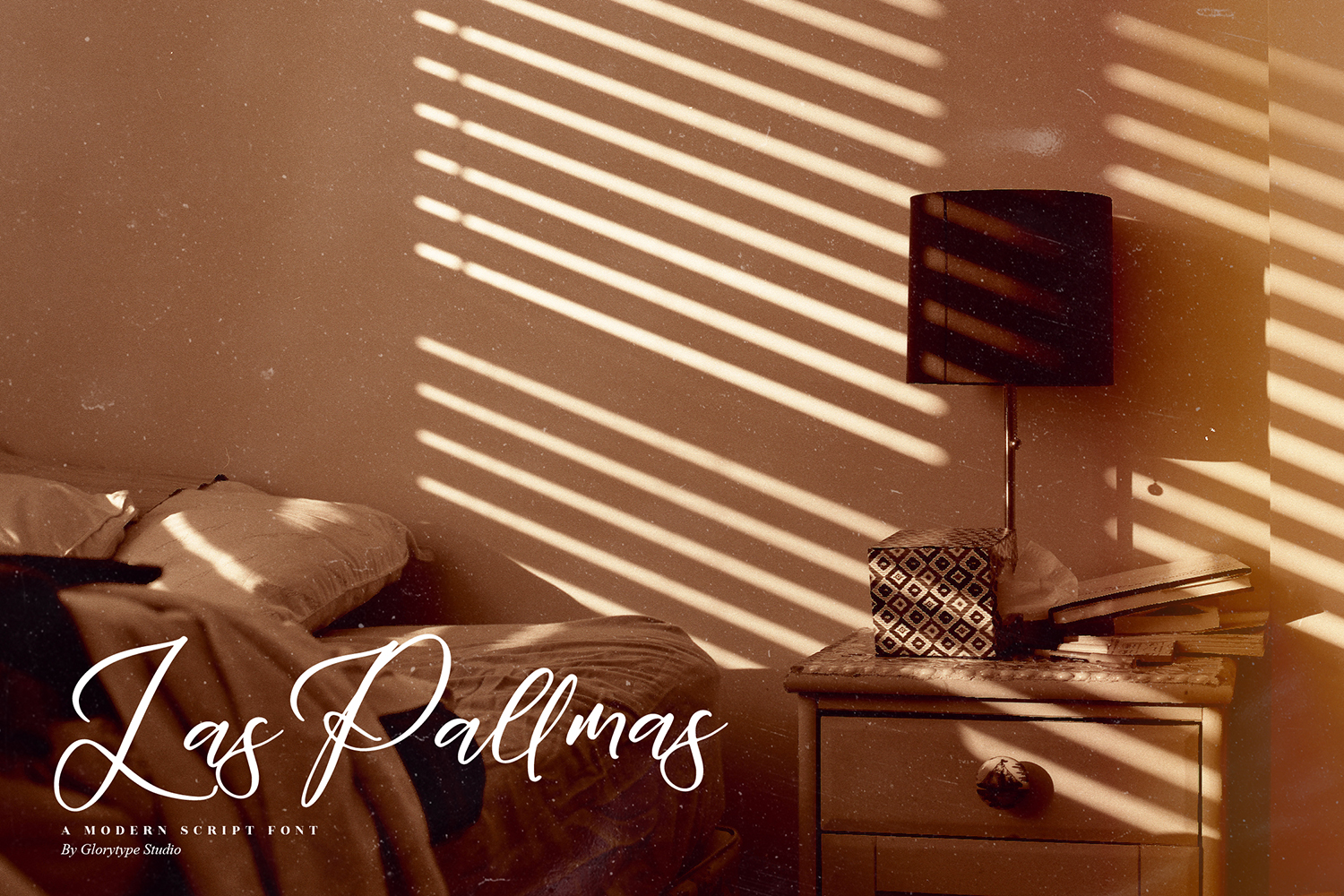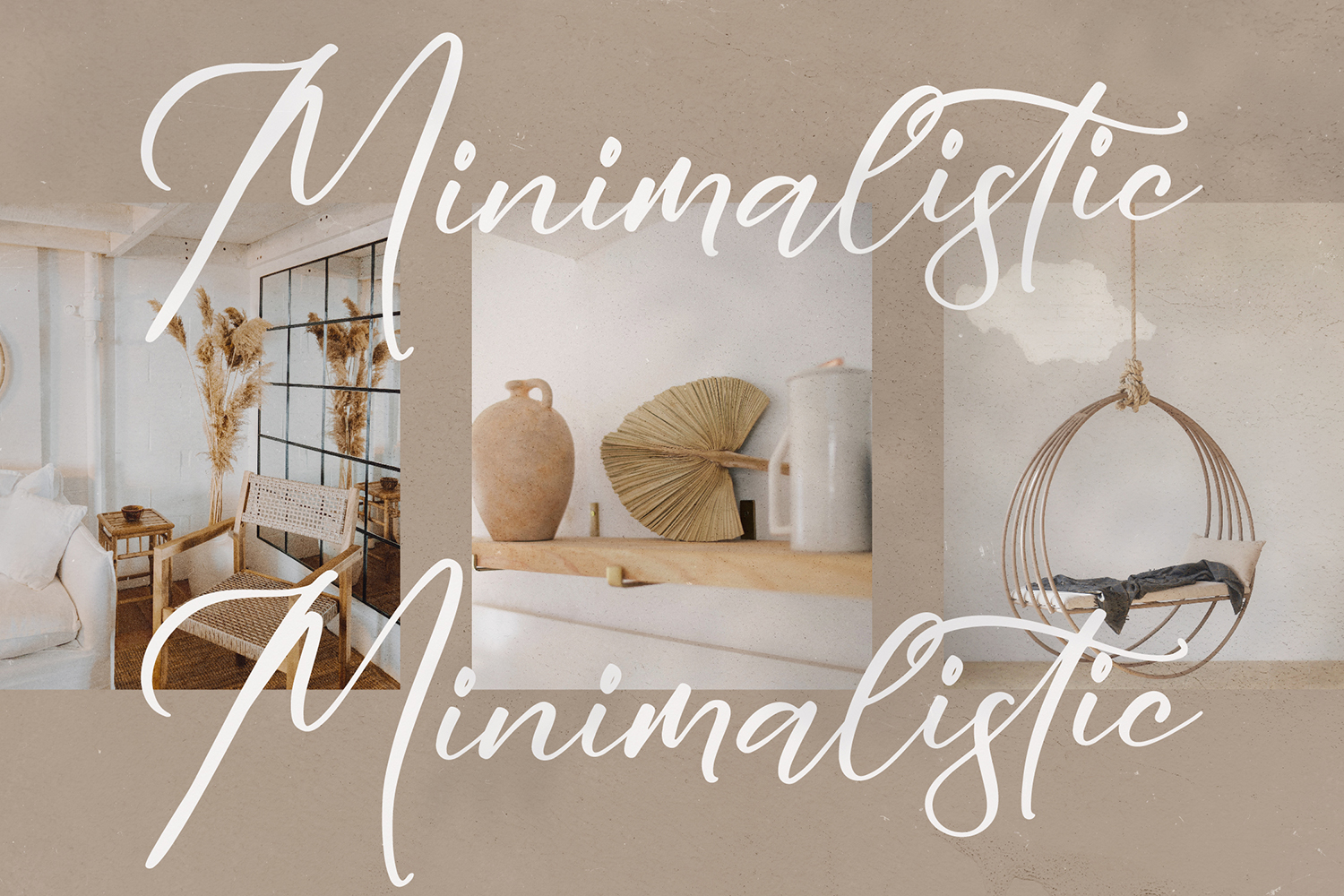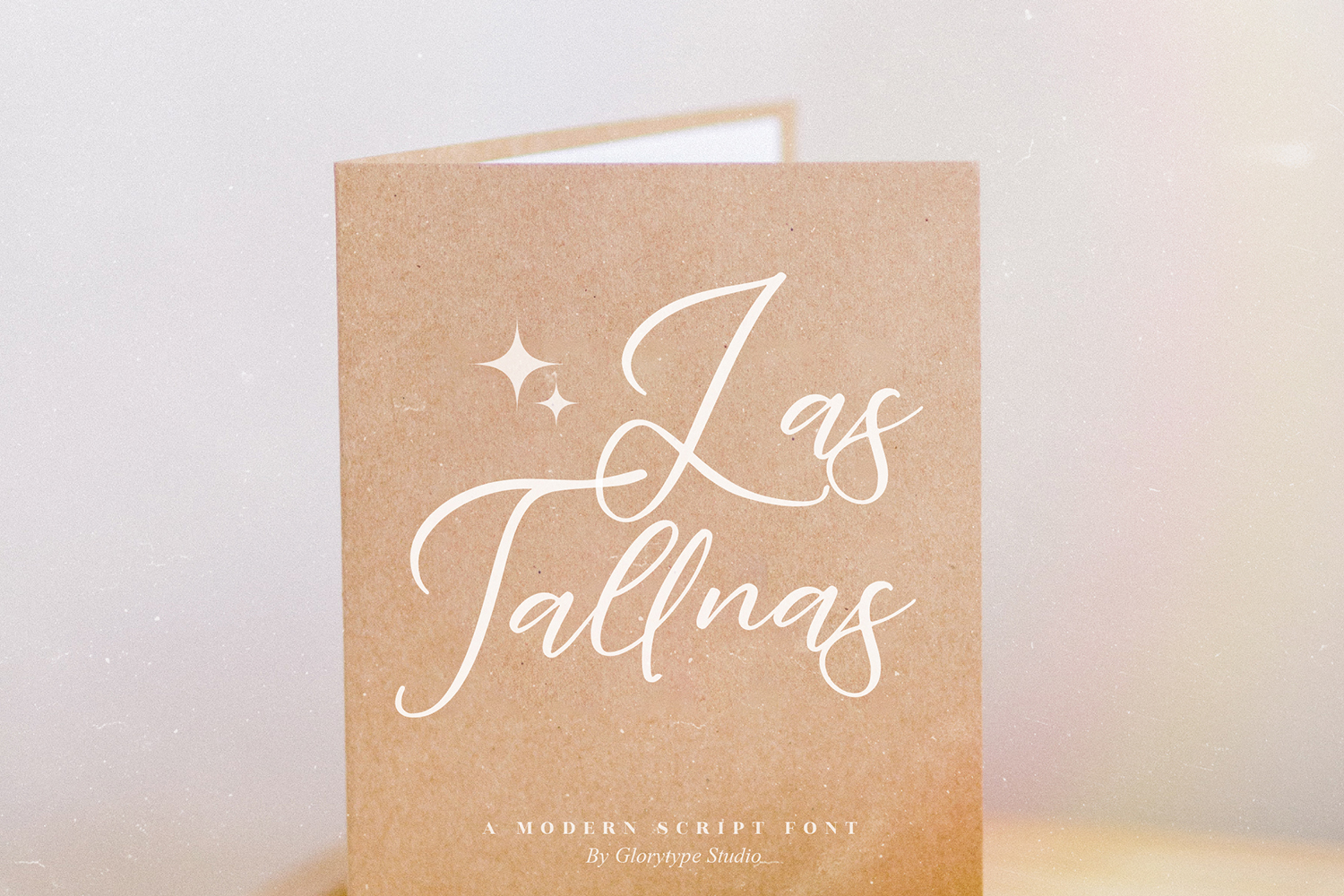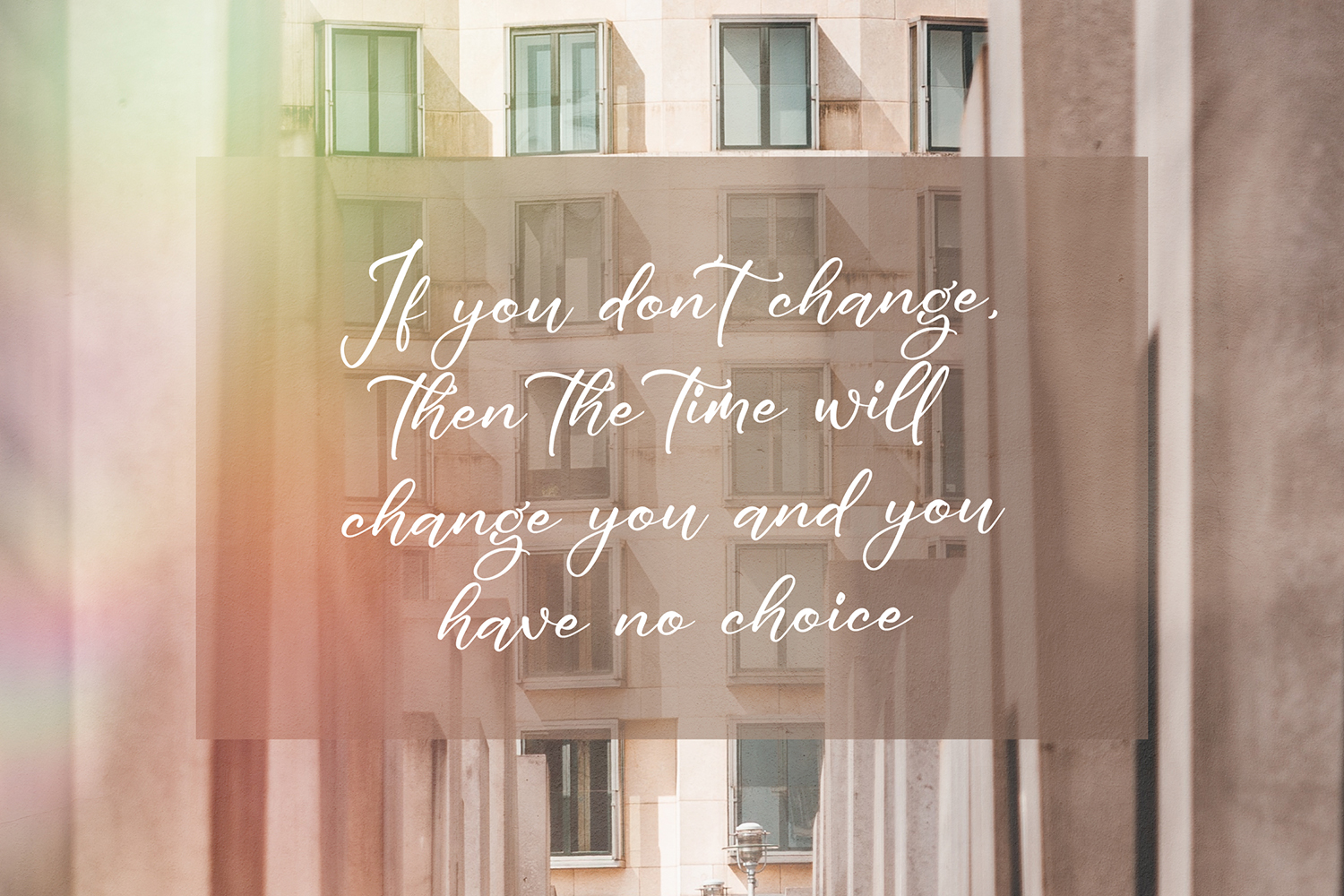
Las Tallnas Free Font
Meet Las Tallnas, a captivating script font tailored for a wide range of projects. Whether it’s logos, branding, homeware designs, product packaging, mugs, quotes, posters, shopping bags, t-shirts, book covers, name cards, invitation cards, greeting cards, labels, photography, watermarks, special events, or any other delightful project in need of an exquisite script, Las Tallnas adds a beautiful touch to elevate your creations. This free typeface was designed by a talented Glorytype Studio. If you like it don’t forget to check out the full version.